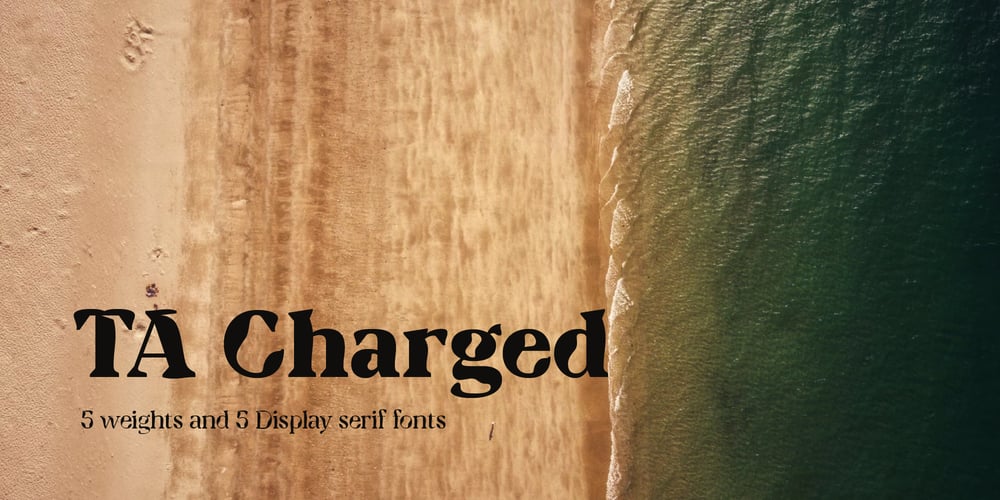
TA Charged Font Family was designed by Tural Aliyev and published by Tural Alisoy. TA Charged contains 5 styles and family package options. Consisting of 5 fonts in 5 weights, it features an extended charset of over 520 glyphs, covering multilingual support, including Western European, Central European, and Southeastern European. Complete with advanced open type features like stylistic alternates, discretionary ligatures, ordinals, small caps, fractions, and case-sensitive forms.The elegant and refined details seen in this font provide a new aesthetic input, satisfy contemporary style, and give a range of choices for luxury typographic projects. This font is perfectly suited for high-impact headlines. Advance open-type features are stunning on logos, branding, magazines, website, etc.Supports languages:Afrikaans, Albanian, Asu, Azerbaijani, Basque, Bemba, Bena, Bosnian, Catalan, Cebuano, Chiga, Colognian, Cornish, Corsican, Croatian, Czech, Danish, Dutch, English, Estonian, Faroese, Filipino, Finnish, French, Friulian, Galician, Ganda, German, Gusii, Hungarian, Icelandic, Ido, Inari Sami, Indonesian, Interlingua, Irish, Italian, Javanese, Jju, Jola-Fonyi, Kabuverdianu, Kalaallisut, Kalenjin, Kinyarwanda, Kurdish, Latvian, Lithuanian, Lojban, Low German, Lower Sorbian, Luo, Luxembourgish, Luyia, Machame, Makhuwa-Meetto, Makonde, Malagasy, Malay, Maltese, Manx, Maori, Morisyen, North Ndebele, Northern Sami, Northern Sotho, Norwegian Bokmål, Norwegian Nynorsk, Nyanja, Nyankole, Occitan, Oromo, Polish, Portuguese, Romanian, Romansh, Rombo, Rundi, Rwa, Samburu, Sango, Sangu, Sardinian, Scottish Gaelic, Sena, Shambala, Shona, Slovak, Slovenian, Soga, Somali, South Ndebele, Southern Sotho, Spanish, Swahili, Swati, Swedish, Swiss German, Taita, Taroko, Teso, Tsonga, Tswana, Turkish, Turkmen, Upper Sorbian, Vunjo, Walloon, Welsh, Western Frisian, Wolof, Xhosa, Zulu